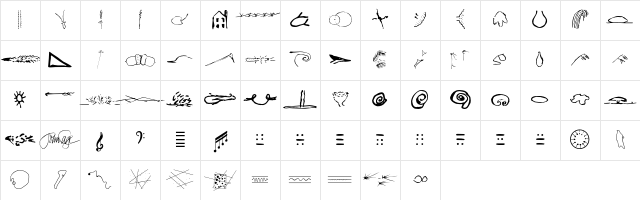
P22Cage Extras Free Font
P22Cage Extras
Style: Extras
P22Cage Family
P22Cage Extras
Design Context for P22Cage
P22Cage is a composed and adaptable typeface that performs quietly and consistently across a wide range of design contexts.